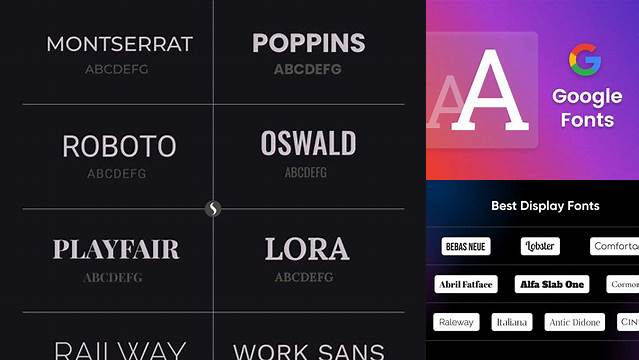
Top Google Fonts For Logos: Create A Stunning Brand
Hey guys! Creating a logo that truly represents your brand is super important, and a huge part of that is choosing the right font. With so many options out there, it can be overwhelming! But don't worry, we're here to break it down. In this comprehensive guide, we'll dive into some of the best Google Fonts you can use for your logos. We'll explore different styles, from classic and elegant to modern and bold, ensuring you find the perfect match for your brand identity. So, let's get started and discover the world of Google Fonts for logos!
1. Classic & Timeless Google Fonts for Logos
When it comes to creating a logo that stands the test of time, you can't go wrong with classic and timeless fonts. These fonts exude sophistication, professionalism, and reliability. Choosing a classic font from Google Fonts ensures your logo remains relevant and recognizable for years to come. Think about iconic brands like Chanel or Tiffany & Co. – their logos utilize fonts that are simple yet elegant, conveying a sense of enduring quality. Google Fonts offers a fantastic range of classic options, making it easy to find one that aligns perfectly with your brand's values. Consider fonts like Playfair Display for a touch of elegance or Montserrat for a clean, modern classic feel. When using classic fonts, pay attention to kerning and spacing to ensure readability and visual harmony. Remember, a well-chosen classic font can elevate your logo and create a lasting impression on your audience.
2. Modern & Minimalist Google Fonts for Logos
For brands that want to project a contemporary and streamlined image, modern and minimalist Google Fonts are the way to go. These fonts often feature clean lines, geometric shapes, and a sense of simplicity. They're perfect for tech startups, design agencies, and any business that wants to convey innovation and forward-thinking. Minimalism in logo design is all about conveying the essence of your brand in the most efficient way possible. Google Fonts provides a wealth of modern options, such as Lato, Open Sans, and Roboto, which are widely used for their versatility and readability. These fonts work exceptionally well in both digital and print formats, making them ideal for a wide range of applications. When using minimalist fonts, focus on creating a logo that is uncluttered and easy to recognize. The negative space around the font can be just as important as the letters themselves. By choosing a modern and minimalist font from Google Fonts, you can create a logo that is both stylish and impactful.
3. Bold & Impactful Google Fonts for Logos
Sometimes you need a logo that really grabs attention, and that's where bold and impactful Google Fonts come in. These fonts are characterized by their thick strokes, strong presence, and ability to command attention. They're perfect for brands that want to make a statement, whether it's a fitness company, a food brand, or any business that wants to project confidence and energy. Google Fonts offers a great selection of bold fonts, including Oswald, Bebas Neue, and Poppins. These fonts are highly legible, even at smaller sizes, and they can make a significant impact in headlines and body text as well. When using bold fonts in your logo, it's important to strike a balance. You want the font to be eye-catching, but not overwhelming. Consider pairing a bold font with a lighter, more subtle font for a balanced look. A well-chosen bold font from Google Fonts can make your logo memorable and help your brand stand out from the competition.
4. Elegant & Script Google Fonts for Logos
If your brand has a touch of sophistication or femininity, elegant and script Google Fonts might be the perfect choice for your logo. These fonts often mimic the look of handwriting, adding a personal and artistic touch to your brand identity. They're great for businesses like wedding planners, bakeries, fashion boutiques, and anyone who wants to convey a sense of grace and charm. Google Fonts provides a lovely array of script fonts, such as Great Vibes, Pacifico, and Lobster. However, it's crucial to use script fonts sparingly and with care. They can be beautiful, but they can also be difficult to read if overused or if the letter spacing is too tight. When using script fonts in your logo, ensure the font is legible and the overall design is balanced. Pairing a script font with a simpler sans-serif font can create a harmonious and visually appealing logo. With the right touch, an elegant script font from Google Fonts can add a unique and memorable quality to your brand.
5. Playful & Quirky Google Fonts for Logos
For brands that want to showcase their creativity and personality, playful and quirky Google Fonts are an excellent option for their logos. These fonts often feature unique shapes, unconventional letterforms, and a sense of fun. They're perfect for children's brands, creative agencies, and any business that wants to stand out from the crowd. Google Fonts has a fantastic selection of quirky fonts, including Luckiest Guy, Permanent Marker, and Fredoka One. These fonts can add a touch of whimsy to your logo, making it more memorable and engaging. However, it's essential to use playful fonts strategically. They may not be suitable for every type of business, particularly those that need to project a more serious or professional image. When using quirky fonts, consider your target audience and ensure the font aligns with your brand's overall message. A well-chosen playful font from Google Fonts can inject personality into your logo and help your brand connect with its audience on a more emotional level.
6. Best Google Fonts for Logos: Serif Fonts
Serif fonts, with their small decorative strokes at the end of each letter, evoke a sense of tradition, authority, and sophistication. They are a classic choice for logos, conveying stability and reliability. Within Google Fonts, several standout serif options can elevate your brand's visual identity. Think of brands like The New York Times or Vogue; their logos rely on serif fonts to communicate credibility and timelessness. Serif fonts are particularly well-suited for businesses in industries like law, finance, and academia. Google Fonts offers excellent serif choices such as Playfair Display, known for its elegance and high contrast, and Merriweather, which offers excellent readability in both print and digital formats. When selecting a serif font for your logo, consider the specific nuances of the font's personality and how it aligns with your brand's messaging. A well-chosen serif font can bring a sense of legacy and trust to your logo.
7. Best Google Fonts for Logos: Sans-Serif Fonts
Sans-serif fonts, characterized by their clean, unadorned letterforms, project a modern, minimalist, and approachable feel. They are a popular choice for logos seeking to convey simplicity and clarity. Many contemporary brands, such as Google itself, utilize sans-serif fonts in their logos to represent innovation and accessibility. The versatility of sans-serif fonts within Google Fonts makes them suitable for a wide range of industries, from technology to healthcare. Google Fonts provides a vast selection of sans-serif options, including Lato, known for its warmth and readability, and Montserrat, a geometric sans-serif that exudes a modern, urban vibe. When incorporating sans-serif fonts into your logo, consider the balance between boldness and legibility to ensure your brand message is communicated effectively. A carefully chosen sans-serif font can give your logo a fresh, contemporary look.
8. Pairing Google Fonts for Logos: Creating Visual Harmony
Combining different Google Fonts in your logo can create visual interest and depth, but it's crucial to achieve harmony. Pairing fonts effectively involves selecting fonts that complement each other, creating a balanced and cohesive design. Think of it like pairing wine with food; certain combinations enhance the overall experience. A common strategy is to pair a serif font with a sans-serif font, leveraging the contrast between the classic and modern styles. For example, you might pair Playfair Display (serif) with Montserrat (sans-serif). Google Fonts offers a wealth of possibilities for font pairing, but it's essential to consider the personality of each font and how they work together. Experiment with different combinations, paying attention to the font weights, sizes, and letter spacing. A well-executed font pairing can elevate your logo and make it more visually appealing.
9. Google Fonts for Logos: Considering Brand Personality
The fonts you choose for your logo should reflect your brand's personality and values. A logo is more than just a visual mark; it's a representation of your brand's identity. Therefore, selecting Google Fonts that align with your brand's character is crucial. For example, if your brand is sophisticated and elegant, a classic serif font like Playfair Display might be a good fit. If your brand is modern and minimalist, a sans-serif font like Lato or Roboto could be more appropriate. Consider your target audience and the message you want to convey. Are you aiming for trustworthiness, innovation, or playfulness? The fonts you choose should reinforce these qualities. Google Fonts offers a diverse range of styles, allowing you to find the perfect match for your brand's unique personality. Remember, your logo is often the first impression customers have of your brand, so make it count.
10. Legibility and Readability in Google Fonts for Logos
While aesthetics are important, legibility and readability are paramount when choosing Google Fonts for your logo. A beautiful font is useless if it's difficult to read. Ensure your logo is easily recognizable at various sizes and in different contexts. Consider the letter spacing, font weight, and overall clarity of the font. Google Fonts offers fonts that are specifically designed for optimal readability, both in print and digital formats. Test your logo in different scenarios, such as on business cards, websites, and social media, to ensure it remains legible. A logo that is easy to read builds trust and credibility, making it more likely that customers will remember your brand. Prioritize readability to create a logo that is both visually appealing and functional.
11. Google Fonts for Logos: Scalability and Adaptability
A great logo should be scalable and adaptable, meaning it looks good whether it's small on a business card or large on a billboard. When selecting Google Fonts for your logo, consider how the font will render at different sizes. Some fonts may lose their clarity or become distorted when scaled up or down. Google Fonts offers a variety of fonts that are designed to maintain their integrity at different sizes, ensuring your logo always looks its best. Test your logo in various contexts to see how the font performs. Additionally, consider how the font will look in different colors and on different backgrounds. A scalable and adaptable logo is essential for building a consistent brand identity across all platforms.
12. Google Fonts for Logos: Licensing and Usage Rights
One of the significant advantages of using Google Fonts for your logo is that they are open-source and free to use, both for personal and commercial projects. This means you can use them in your logo without worrying about licensing fees or restrictions. However, it's always a good practice to review the specific licensing terms for each font to ensure you are using it correctly. The licensing information is readily available on the Google Fonts website. While most Google Fonts are under the Open Font License (OFL), which allows for broad usage rights, it's essential to be aware of any specific conditions. By understanding the licensing terms, you can confidently use Google Fonts in your logo without any legal concerns.
13. Kerning and Letter Spacing in Google Fonts for Logos
Kerning and letter spacing play a crucial role in the overall appearance and readability of your logo. Kerning refers to the adjustment of space between individual letter pairs, while letter spacing is the overall space between all letters in a word. Proper kerning and letter spacing ensure that your logo looks balanced and professional. When using Google Fonts for your logo, pay close attention to these details. Some fonts may require manual adjustments to kerning to achieve the desired visual effect. Use design software to fine-tune the spacing between letters, ensuring that each word is easy to read and aesthetically pleasing. Well-kerned and spaced logos convey a sense of attention to detail and professionalism.
14. Color Psychology and Google Fonts for Logos
Color psychology plays a significant role in logo design, and the color you choose for your font can impact how your brand is perceived. Different colors evoke different emotions and associations. For example, blue often represents trust and stability, while red conveys energy and excitement. When selecting Google Fonts for your logo, consider how the font color will interact with the font's style and personality. A bold font in a vibrant color might be perfect for a brand that wants to stand out, while a classic font in a muted color could convey a sense of sophistication. Experiment with different color combinations to find the best match for your brand's message and target audience. Color psychology, combined with the right Google Font, can create a powerful and memorable logo.
15. Best Practices for Using Google Fonts in Logos
Using Google Fonts effectively in your logos involves following some best practices to ensure a professional and impactful design. Start by understanding your brand's personality and values, and then select fonts that align with this identity. Prioritize legibility and readability, ensuring your logo is easy to read at various sizes. Pay attention to kerning and letter spacing, making manual adjustments if necessary. Consider font pairing to create visual interest, but avoid using too many different fonts. Test your logo in different contexts and applications, ensuring it looks good on various backgrounds and in different colors. By following these best practices, you can create a logo that effectively represents your brand using Google Fonts.
16. Google Fonts for Logos: Considering Industry Trends
Staying aware of current design trends can help you create a logo that feels modern and relevant. While timelessness is essential, incorporating elements of contemporary design can keep your brand looking fresh. Google Fonts offers a wide variety of fonts that reflect current trends, such as geometric sans-serifs and minimalist styles. However, it's crucial to balance trendiness with longevity. Avoid choosing a font that is overly trendy, as it may quickly become outdated. Instead, opt for fonts that have a timeless quality but also incorporate some modern elements. Research current logo design trends and see how other brands in your industry are using Google Fonts. This can provide inspiration and help you make informed decisions about your own logo design.
17. Google Fonts for Logos: Using Font Weights Effectively
Font weight refers to the thickness of the font's strokes, ranging from thin to extra bold. Using font weights effectively can add depth and visual hierarchy to your logo. Google Fonts offers many fonts in multiple weights, allowing you to create a dynamic and balanced design. For example, you might use a bold weight for your brand name and a lighter weight for your tagline. This creates a visual contrast that draws attention to the most important elements of your logo. Experiment with different font weights to see how they impact the overall look and feel of your logo. A well-considered use of font weights can enhance the readability and impact of your logo.
18. Google Fonts for Logos: The Importance of a Tagline Font
If your logo includes a tagline, selecting the right font for it is crucial. The tagline font should complement your main logo font and convey the essence of your brand's message. Often, a lighter weight of the same font family or a contrasting font style is used for the tagline. Google Fonts offers a variety of options for tagline fonts, allowing you to create a harmonious and visually appealing logo. Consider the relationship between your brand name and tagline, and choose a font that supports this connection. A well-chosen tagline font can add clarity and context to your logo, helping customers understand what your brand is all about.
19. Google Fonts for Logos: Creating a Font Hierarchy
Font hierarchy refers to the arrangement of different fonts in a way that guides the viewer's eye and conveys a clear message. In logo design, this often involves using different font weights and sizes to create a visual hierarchy. Google Fonts provides the tools to establish a strong font hierarchy in your logo, ensuring that the most important elements stand out. For example, your brand name should typically be the most prominent element, followed by your tagline or other supporting text. Use bold fonts and larger sizes for key elements, and lighter weights and smaller sizes for secondary elements. A well-defined font hierarchy makes your logo more readable and impactful.
20. Google Fonts for Logos: Testing Your Font Choices
Before finalizing your logo design, it's essential to test your font choices in various contexts. This ensures that your logo looks good across different platforms and applications. Test your logo on your website, social media profiles, business cards, and other marketing materials. Check how the fonts render in different sizes and on different backgrounds. Get feedback from others on your font choices to get a fresh perspective. Google Fonts allows you to easily experiment with different fonts, making it simple to test various options. Testing your font choices is a crucial step in the logo design process, ensuring that your final logo is effective and visually appealing.
21. The Psychology of Font Styles in Logos
The style of font used in a logo can evoke certain emotions and perceptions. Serif fonts often convey tradition and trustworthiness, while sans-serif fonts project modernity and simplicity. Script fonts can add elegance and personality, while bold fonts command attention and convey confidence. Understanding the psychology of font styles can help you choose Google Fonts that align with your brand's message. Consider the emotions you want your logo to evoke and select fonts that support these feelings. For example, if you want your brand to be seen as reliable and established, a classic serif font might be the best choice. If you want to project innovation and creativity, a modern sans-serif font could be more effective. The psychology of font styles is a powerful tool for shaping brand perception.
22. Google Fonts for Logos: Minimalist Logo Design
Minimalist logo design focuses on simplicity and clarity, using minimal elements to convey a brand's message. Google Fonts play a crucial role in minimalist logos, as the font is often the primary design element. Choose clean and legible fonts that communicate the essence of your brand without unnecessary ornamentation. Sans-serif fonts are often a popular choice for minimalist logos due to their simplicity and versatility. Consider the negative space around the font and how it contributes to the overall design. A well-executed minimalist logo is both timeless and impactful. Google Fonts provides a wide range of options for creating stunning minimalist logos.
23. Using Google Fonts for Wordmark Logos
A wordmark logo is a type of logo that primarily consists of the brand's name, often using a specific font to create a unique visual identity. Google Fonts are an excellent resource for creating compelling wordmark logos. The choice of font is critical in a wordmark logo, as it carries the entire weight of the brand's visual representation. Consider fonts that are both legible and memorable, reflecting your brand's personality. Experiment with different font weights, kerning, and letter spacing to achieve the desired effect. Google Fonts offers a diverse range of options for wordmark logos, from classic serif fonts to modern sans-serif fonts. A well-designed wordmark logo can be highly effective in building brand recognition.
24. Google Fonts for Logos: Monogram Logos
Monogram logos use the initials of a brand's name to create a symbolic representation. These logos are often elegant and timeless, conveying a sense of sophistication. Google Fonts can be used to create stylish and memorable monogram logos. The font you choose should be legible and reflect the brand's personality. Consider using a font that has a unique character or distinctive letterforms. Experiment with different combinations of initials and font styles to find the most effective design. Google Fonts offers a variety of options for monogram logos, from classic serif fonts to elegant script fonts. A well-designed monogram logo can be a powerful symbol of your brand.
25. Avoiding Common Mistakes with Google Fonts in Logos
When using Google Fonts in logo design, it's important to avoid common mistakes that can undermine the effectiveness of your logo. One common mistake is choosing a font that is difficult to read, especially at smaller sizes. Another mistake is using too many different fonts in your logo, which can create a cluttered and confusing design. It's also important to pay attention to kerning and letter spacing, ensuring that the letters are properly spaced. Avoid using fonts that are overly trendy or that don't align with your brand's personality. By being aware of these common mistakes, you can create a logo that is both visually appealing and effective using Google Fonts.
26. Google Fonts for Logos: Future Trends in Font Design
The world of font design is constantly evolving, and staying informed about future trends can help you create a logo that feels modern and relevant. Some emerging trends in font design include variable fonts, which offer greater flexibility and customization, and geometric sans-serif fonts, which continue to be popular for their simplicity and modernity. Google Fonts is often at the forefront of these trends, offering new and innovative font options. Keep an eye on the latest developments in font design and consider how they might influence your logo design choices. By staying ahead of the curve, you can create a logo that is both timeless and contemporary using Google Fonts.
27. Google Fonts for Logos: Mobile-First Design Considerations
In today's mobile-first world, it's essential to consider how your logo will look on smaller screens. When selecting Google Fonts for your logo, choose fonts that are legible and readable on mobile devices. Avoid fonts that are too thin or decorative, as they may become difficult to read on small screens. Test your logo on different mobile devices and browsers to ensure it looks good across all platforms. Consider using scalable vector graphics (SVGs) for your logo, as they maintain their quality at any size. Google Fonts offers a variety of fonts that are well-suited for mobile-first design, ensuring that your logo looks great on any device.
28. Google Fonts for Logos: How to Download and Use
Downloading and using Google Fonts for your logo is a straightforward process. First, visit the Google Fonts website and browse the extensive library of fonts. Once you've found a font you like, click on it to view its details and download options. You can choose to download the font files directly or use the Google Fonts API to embed the font on your website. For logo design, it's best to download the font files and install them on your computer. This allows you to use the fonts in your design software of choice. Google Fonts are open-source and free to use for both personal and commercial projects, making them a great resource for logo design.
29. Maintaining Brand Consistency with Google Fonts for Logos
Brand consistency is crucial for building a strong and recognizable brand. Using the same fonts across all your marketing materials, including your logo, website, and social media profiles, helps create a cohesive brand identity. When you've chosen Google Fonts for your logo, make sure to use those same fonts in other areas of your brand communication. This creates a seamless and professional look that reinforces your brand's message. Document your font choices in your brand guidelines to ensure consistency across all platforms and materials. Maintaining brand consistency with Google Fonts for your logo is essential for building trust and recognition with your audience.
30. Measuring the Impact of Google Fonts on Logo Design
The choice of Google Fonts in your logo can significantly impact how your brand is perceived. A well-chosen font can enhance your logo's readability, memorability, and overall effectiveness. Measuring the impact of your font choices can be challenging, but there are several metrics you can consider. Track brand recognition and recall, monitor website traffic and engagement, and gather feedback from customers and stakeholders. A/B testing different font options can also provide valuable insights into which fonts resonate best with your target audience. By measuring the impact of Google Fonts on your logo design, you can make informed decisions and create a logo that effectively represents your brand.